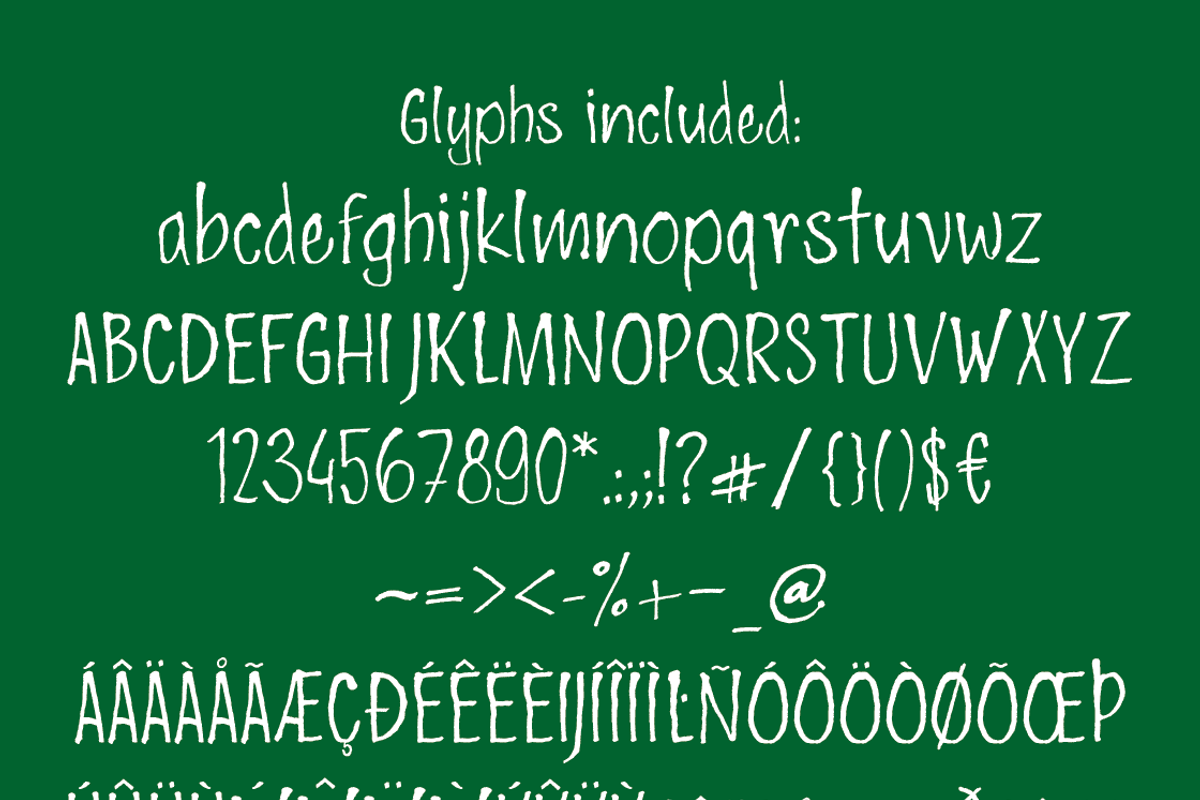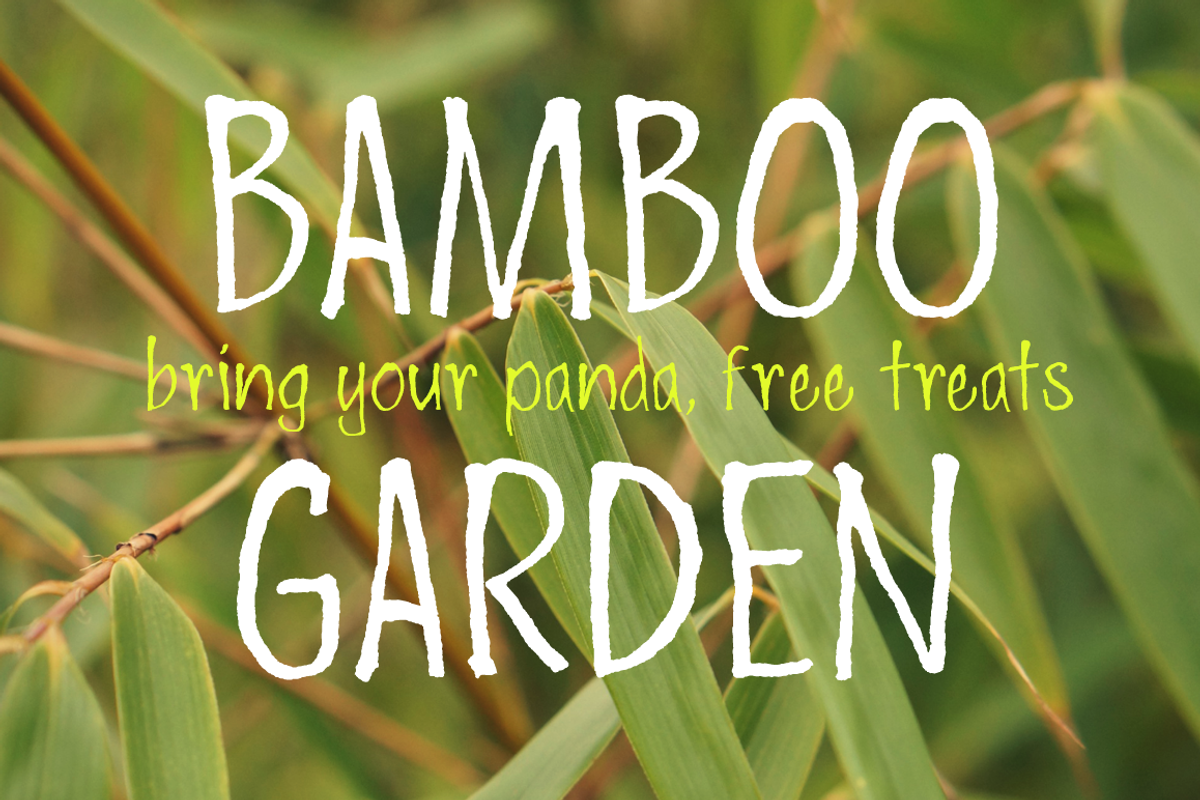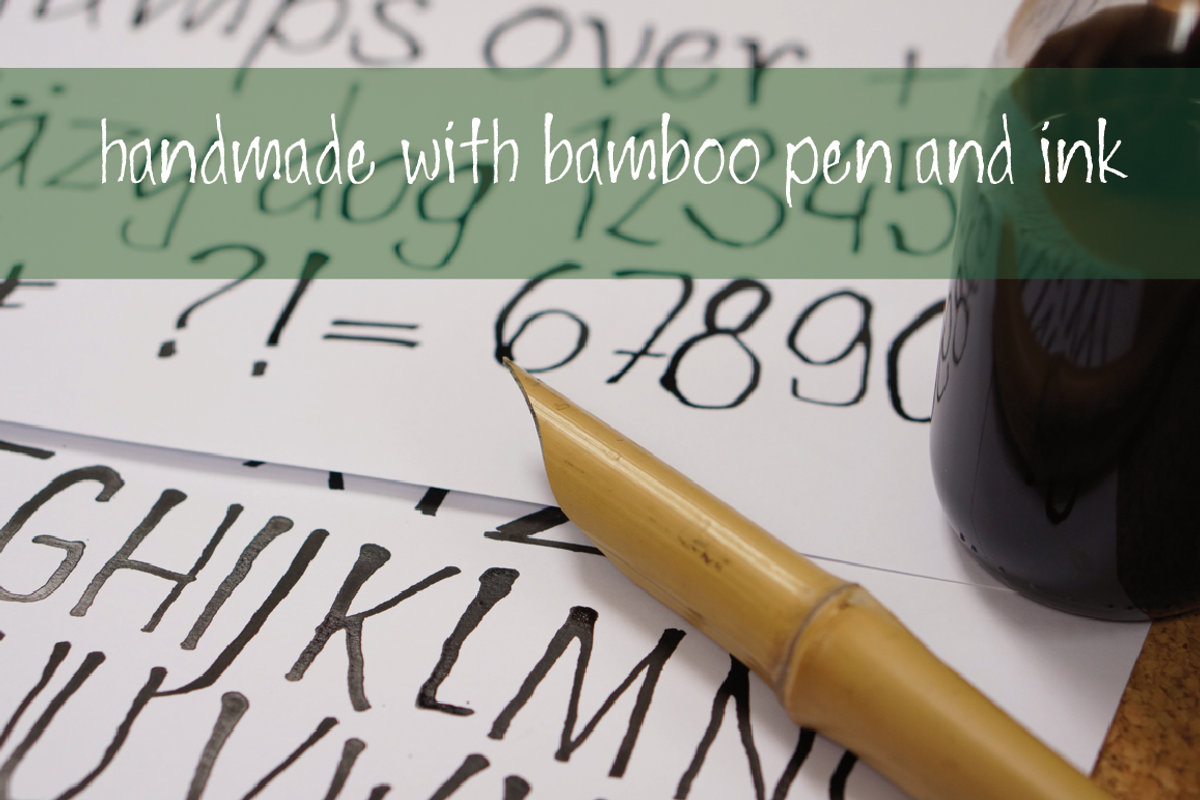
Bambink Condensed
Bambink Condensed by Fonts by ateliervonau is a font selected for branding, posters, packaging, typography.
Why Bambink Condensed is worth a look
Bambink Condensed by Fonts by ateliervonau fits naturally into Branding, posters, packaging, typography.